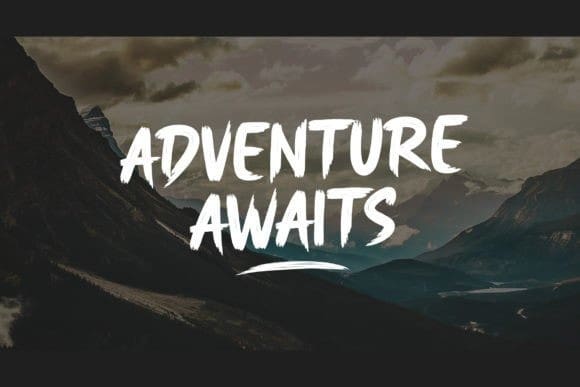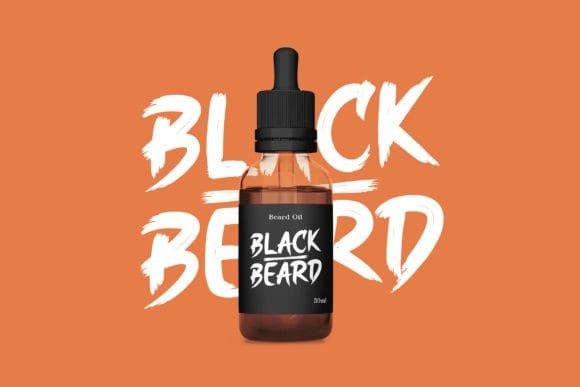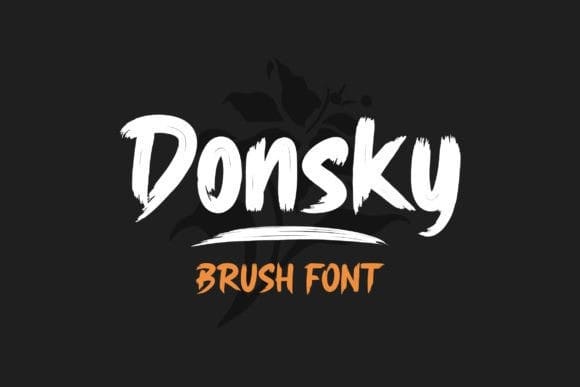
Donsky Brush Font
Donsky Brush Font, is a dry brush display font, suitable for any projects such as logos, branding projects, product packaging, mugs, quotes, posters, shopping bags, t-shirts, book covers, labels, photography, watermark, and more. Use this gorgeous and unique font to bring any DIY project to life!